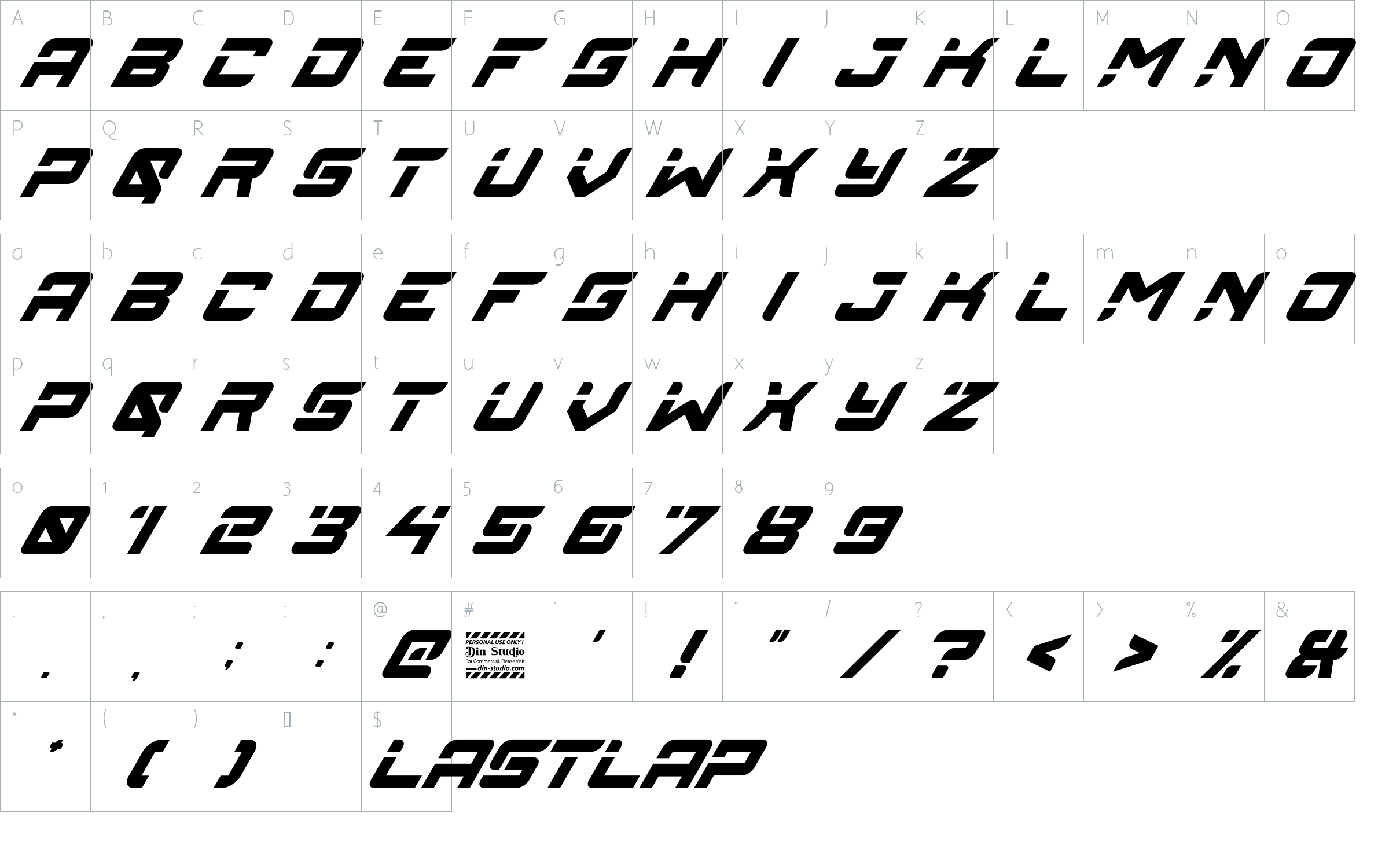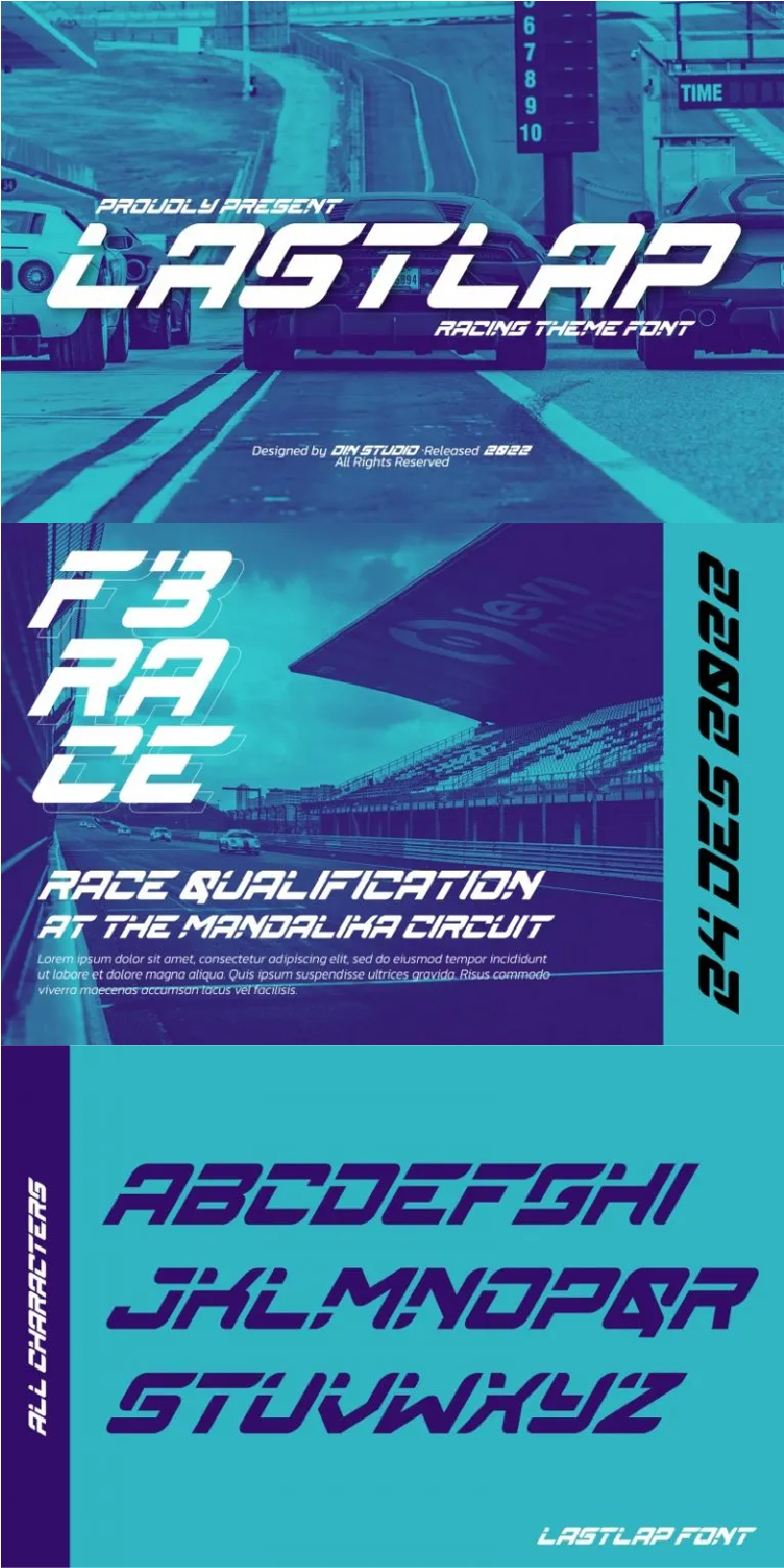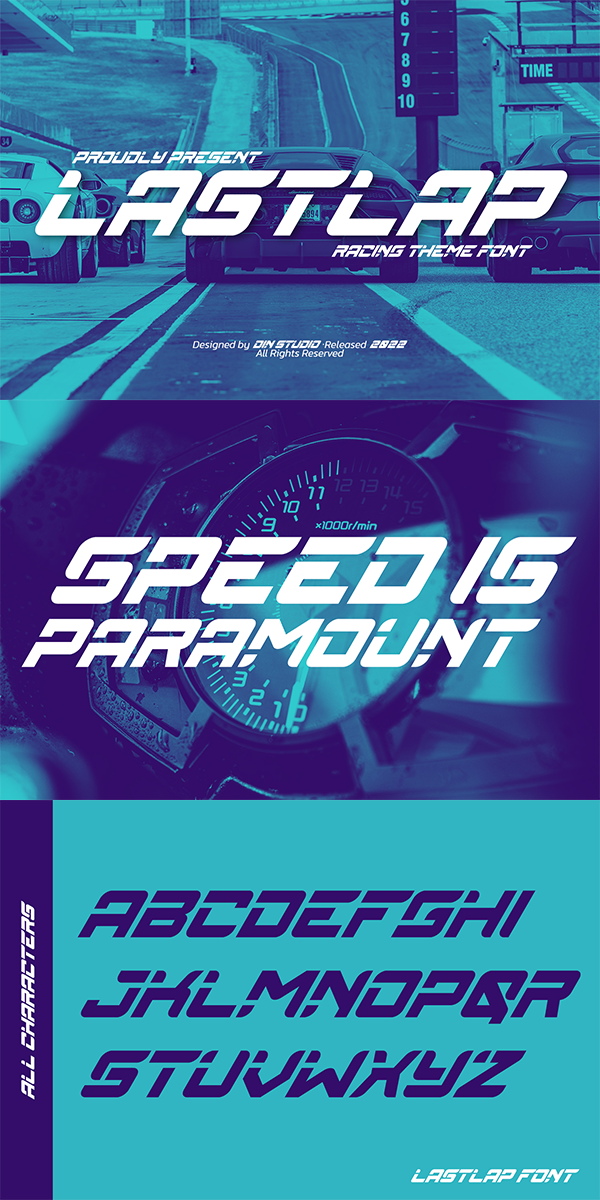
Lastlap Font
About Lastlap
Experience the amazing feeling with Lastlap that will make your work a lot easier than before. It is a display font designed in a racing theme. In accordance with its theme, Lastlap expresses a brave feeling with its dramatic bold style suitable to use in titles, logos, and any other designs with large-sized texts. Enjoy other incredible features available on this font.
Lastlap fits best on various design projects such as posters, banners, logos, book covers, headings, printed products, merchandise, social media, etc. Find out more ways to use this font by taking a look at the font preview.